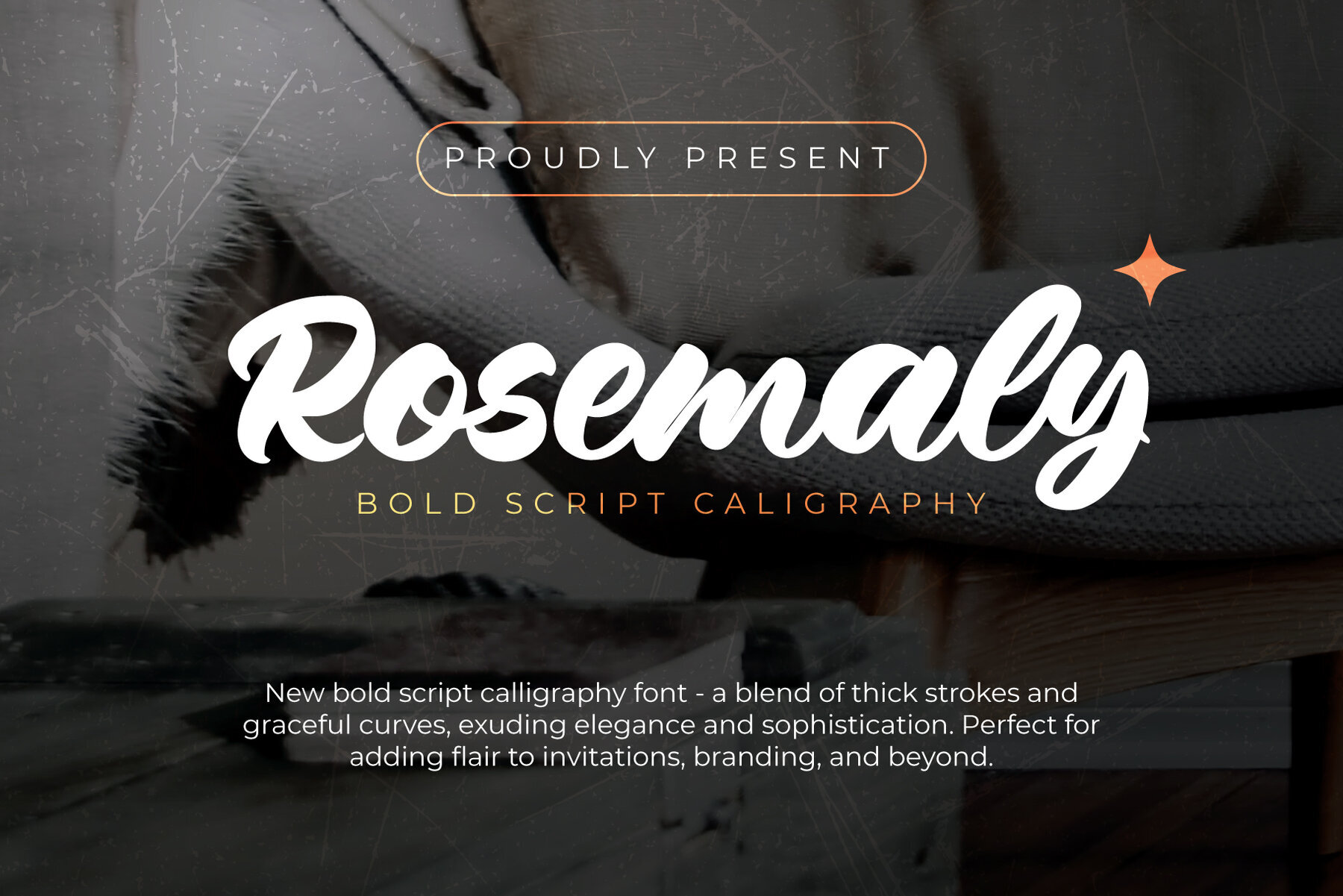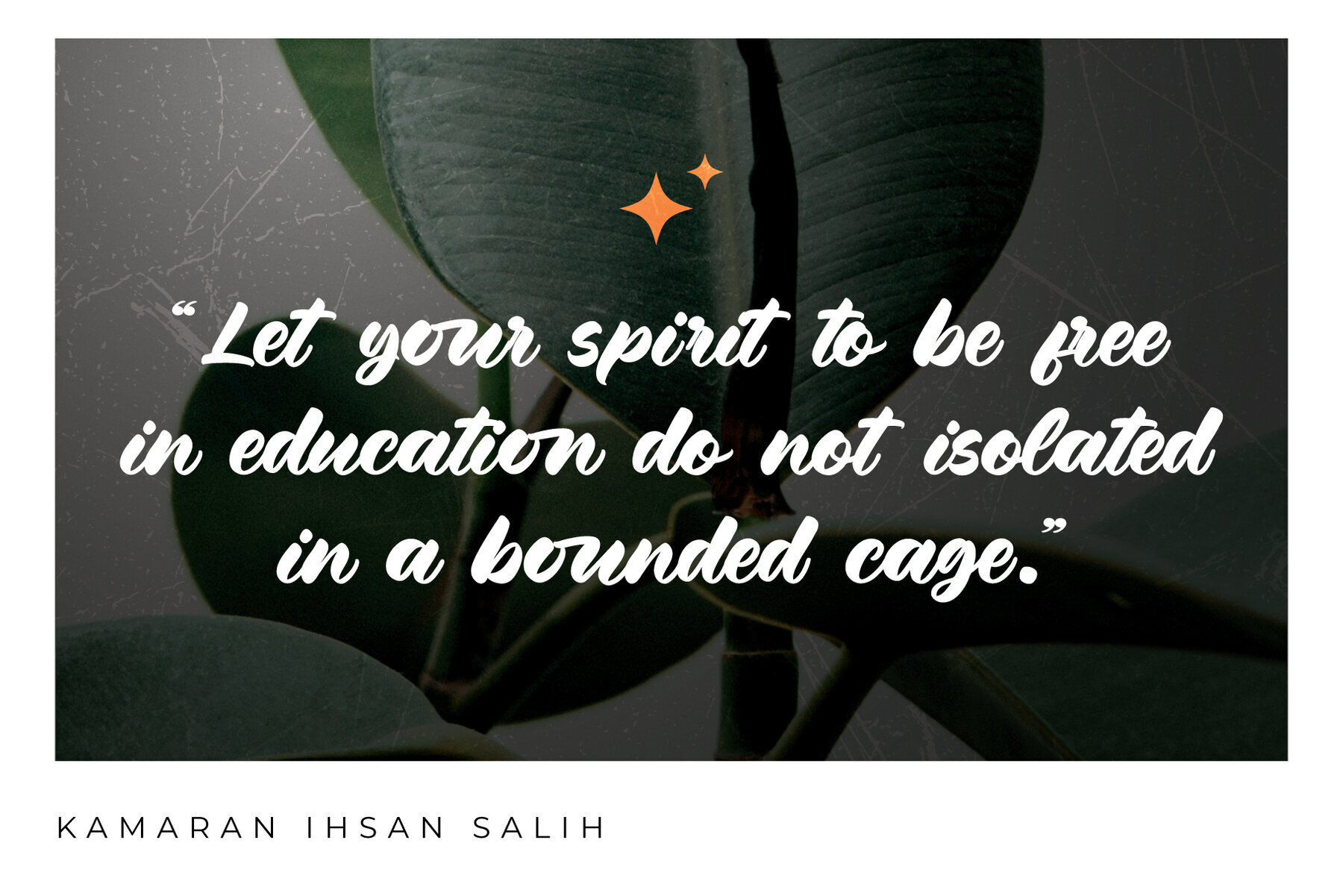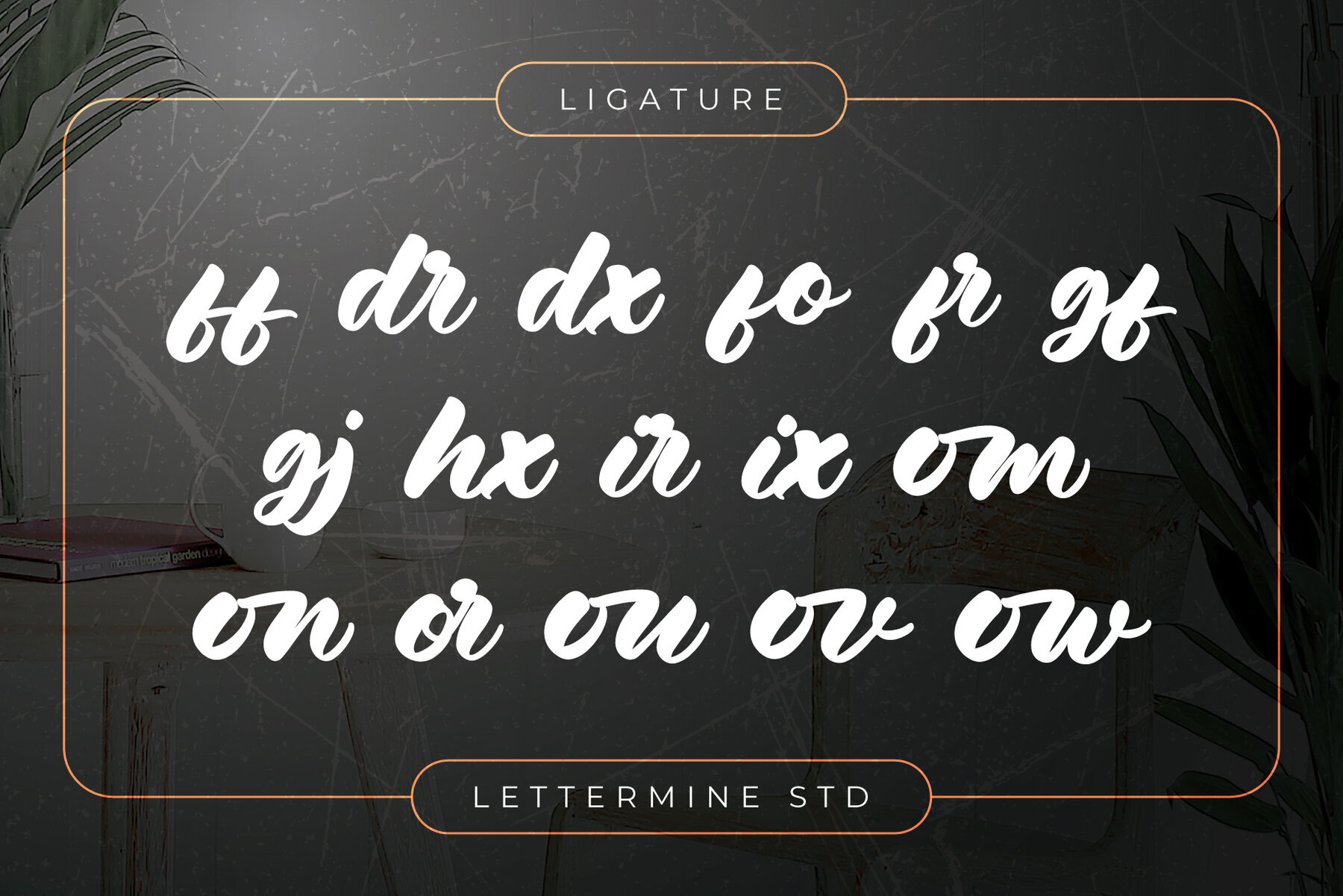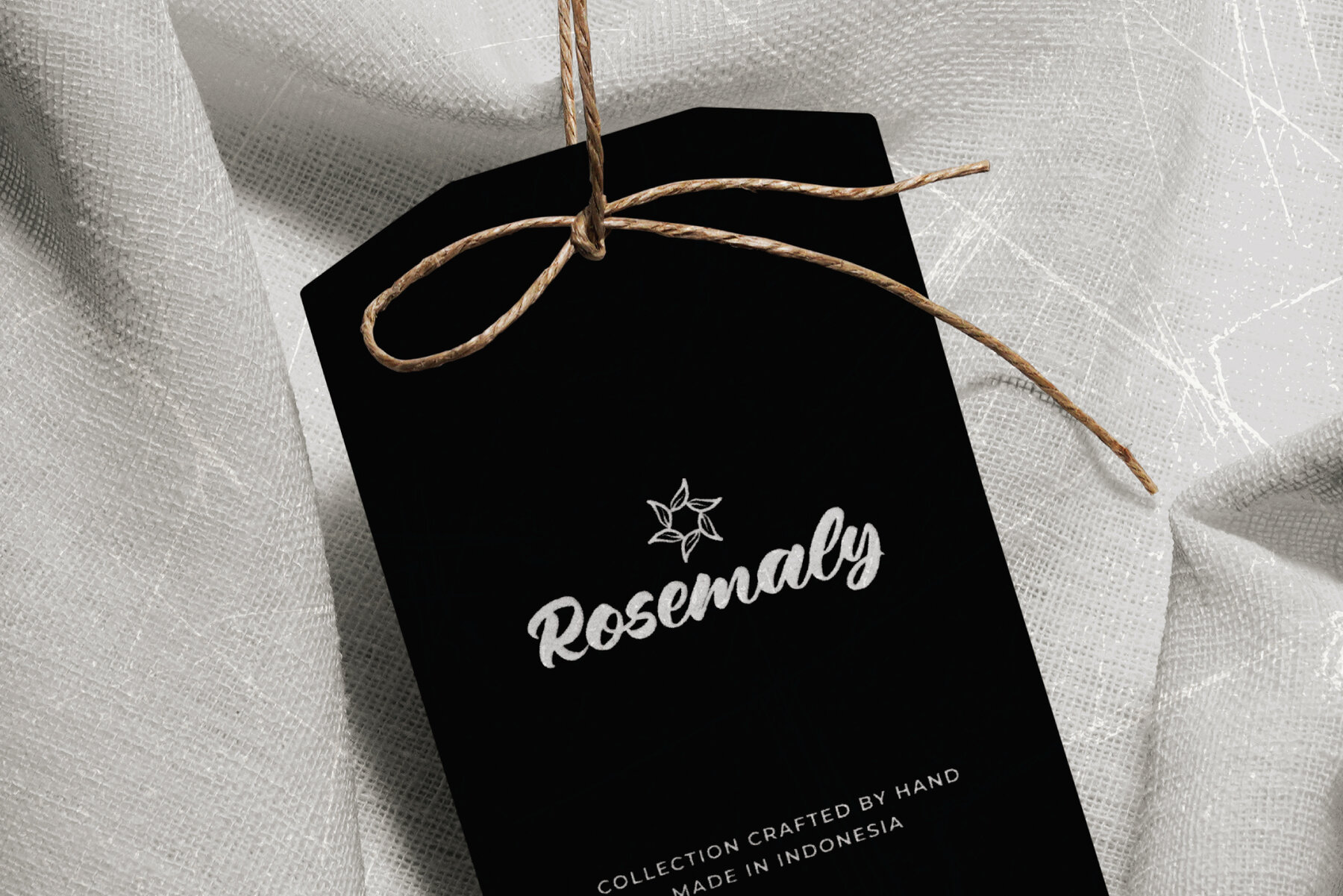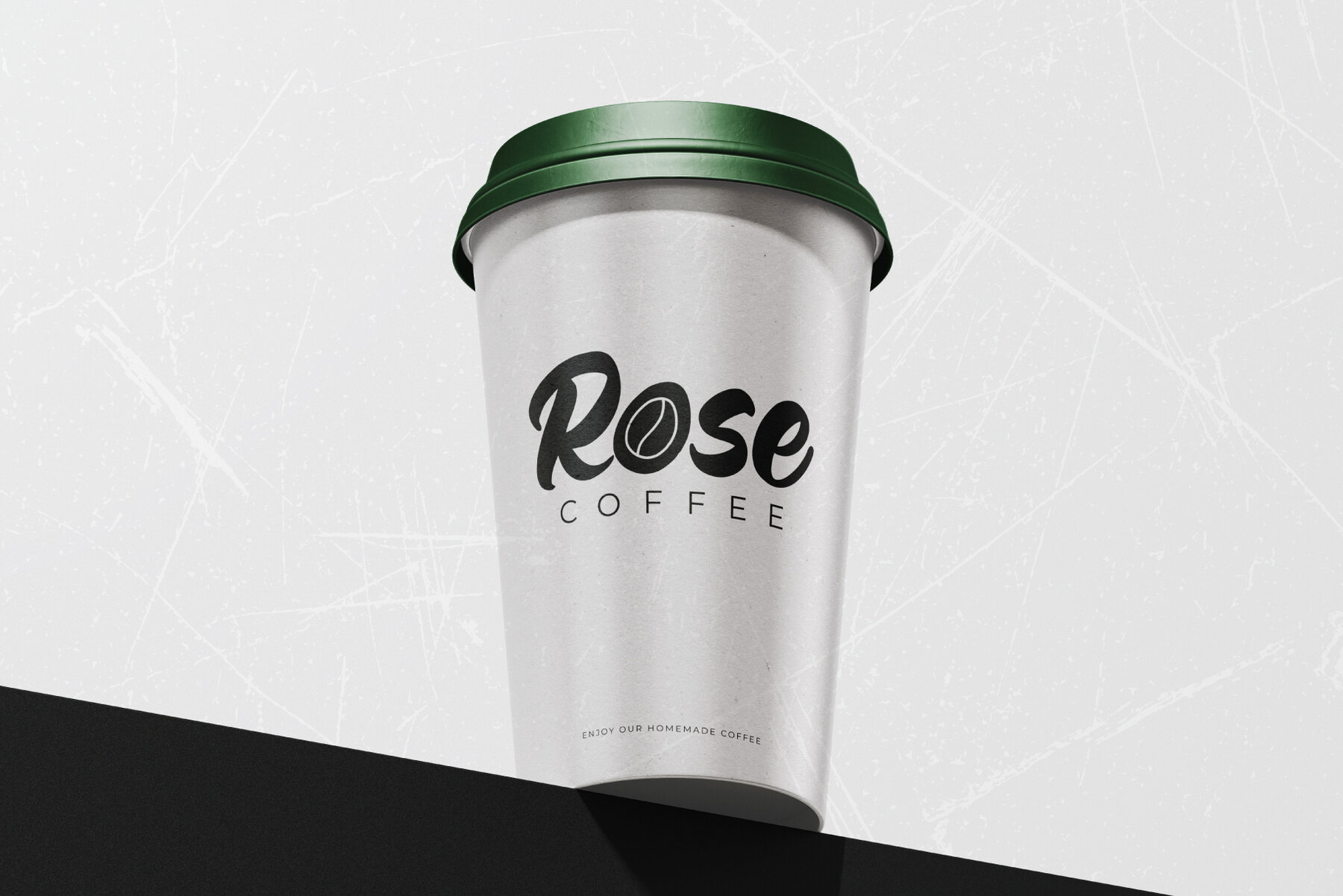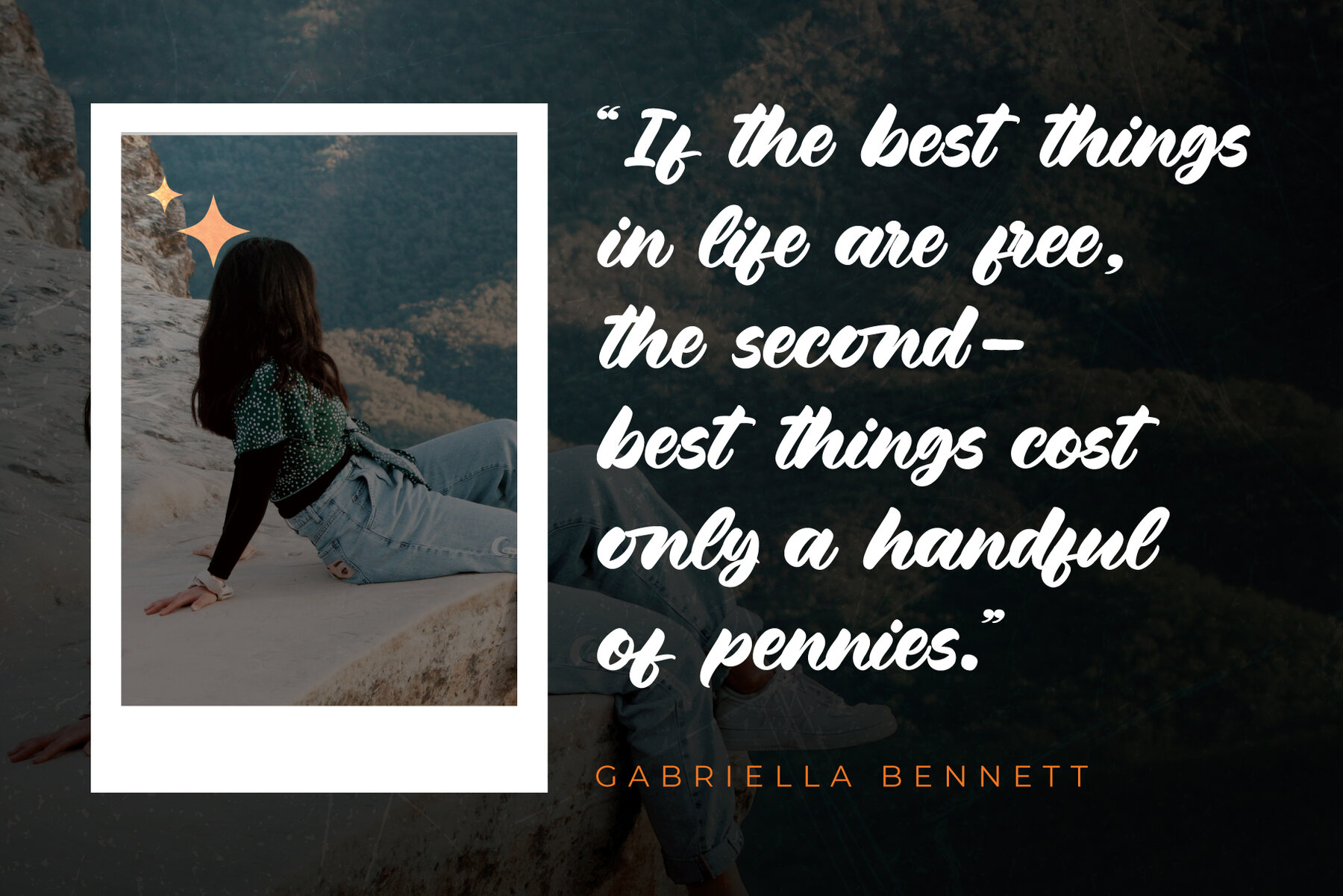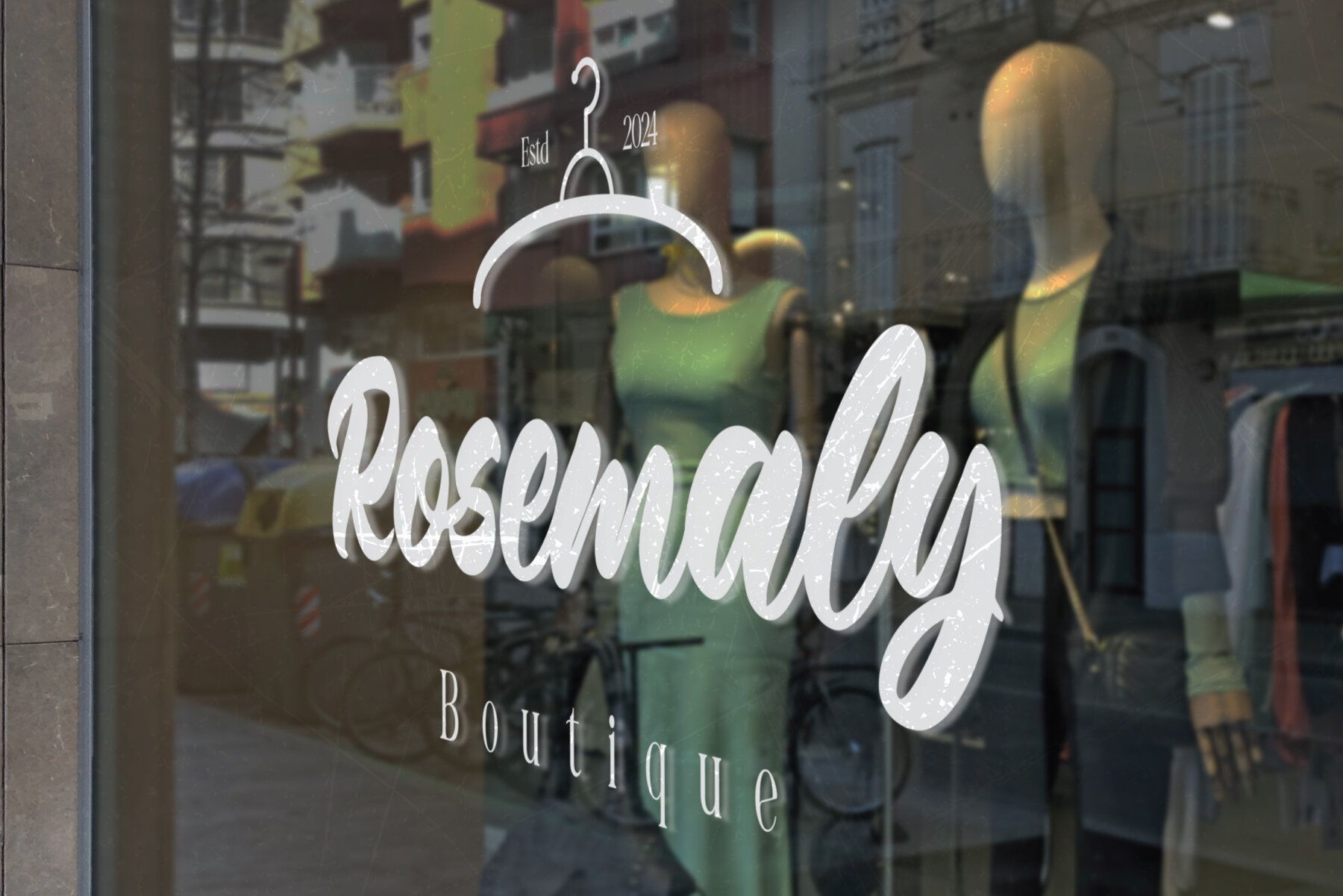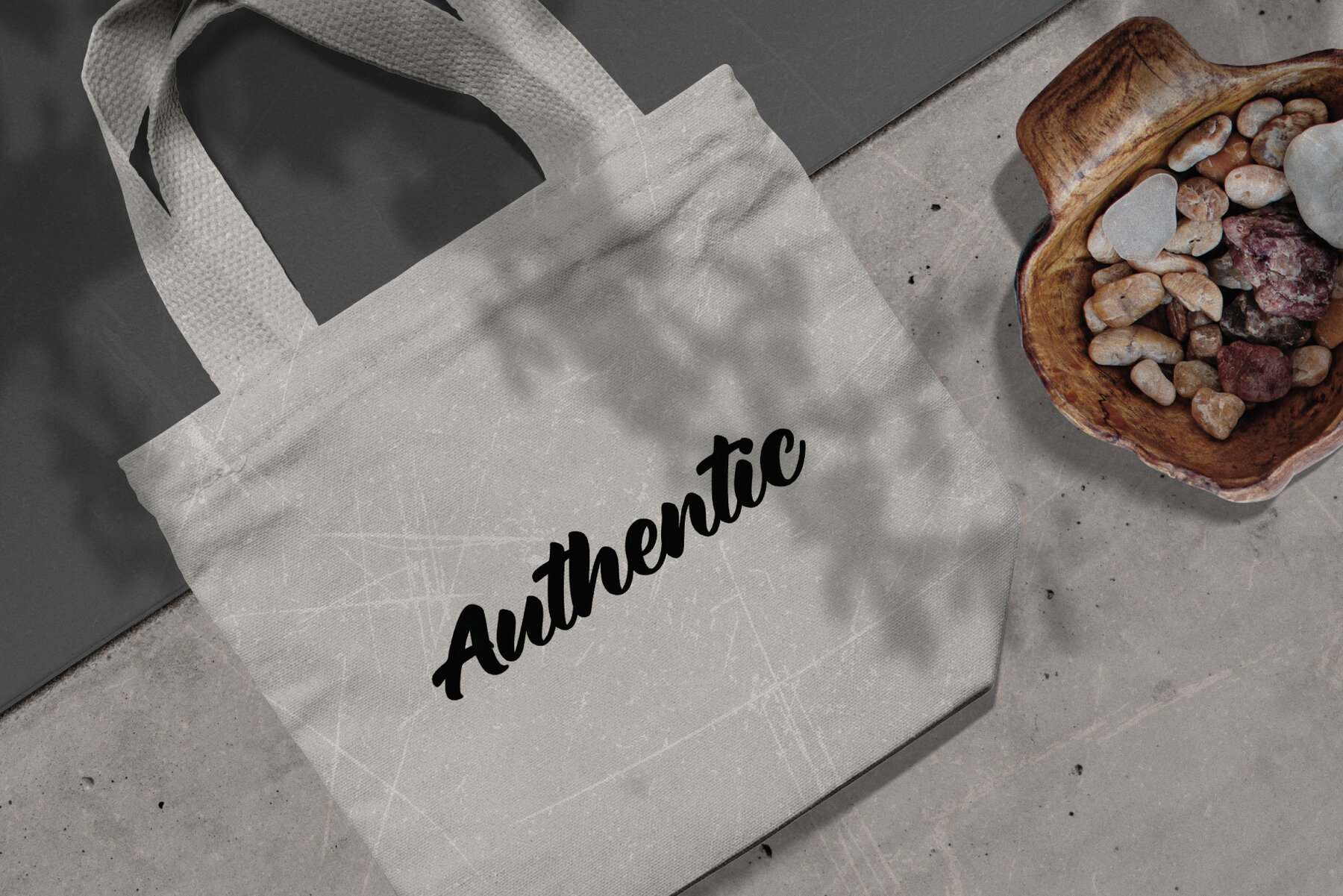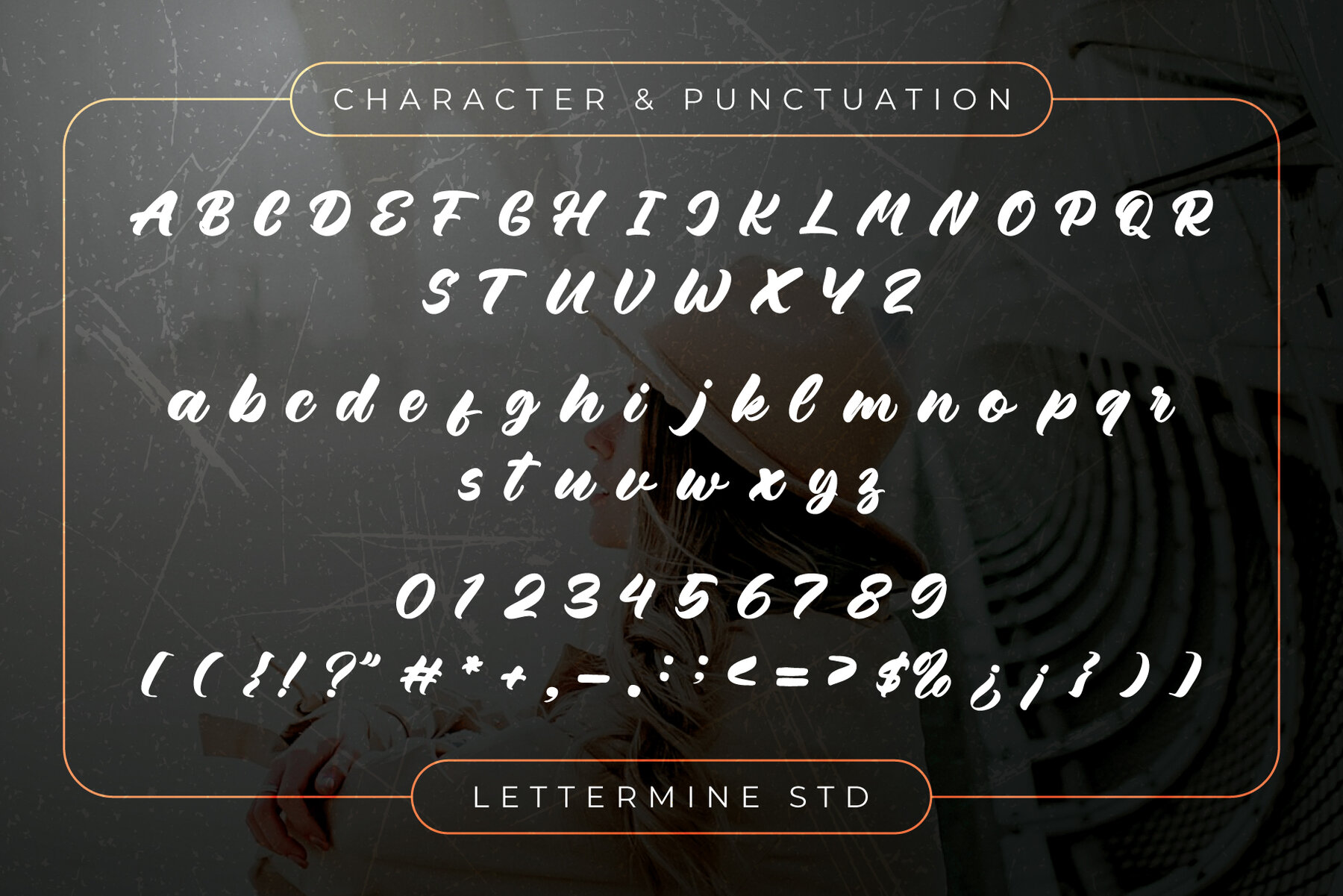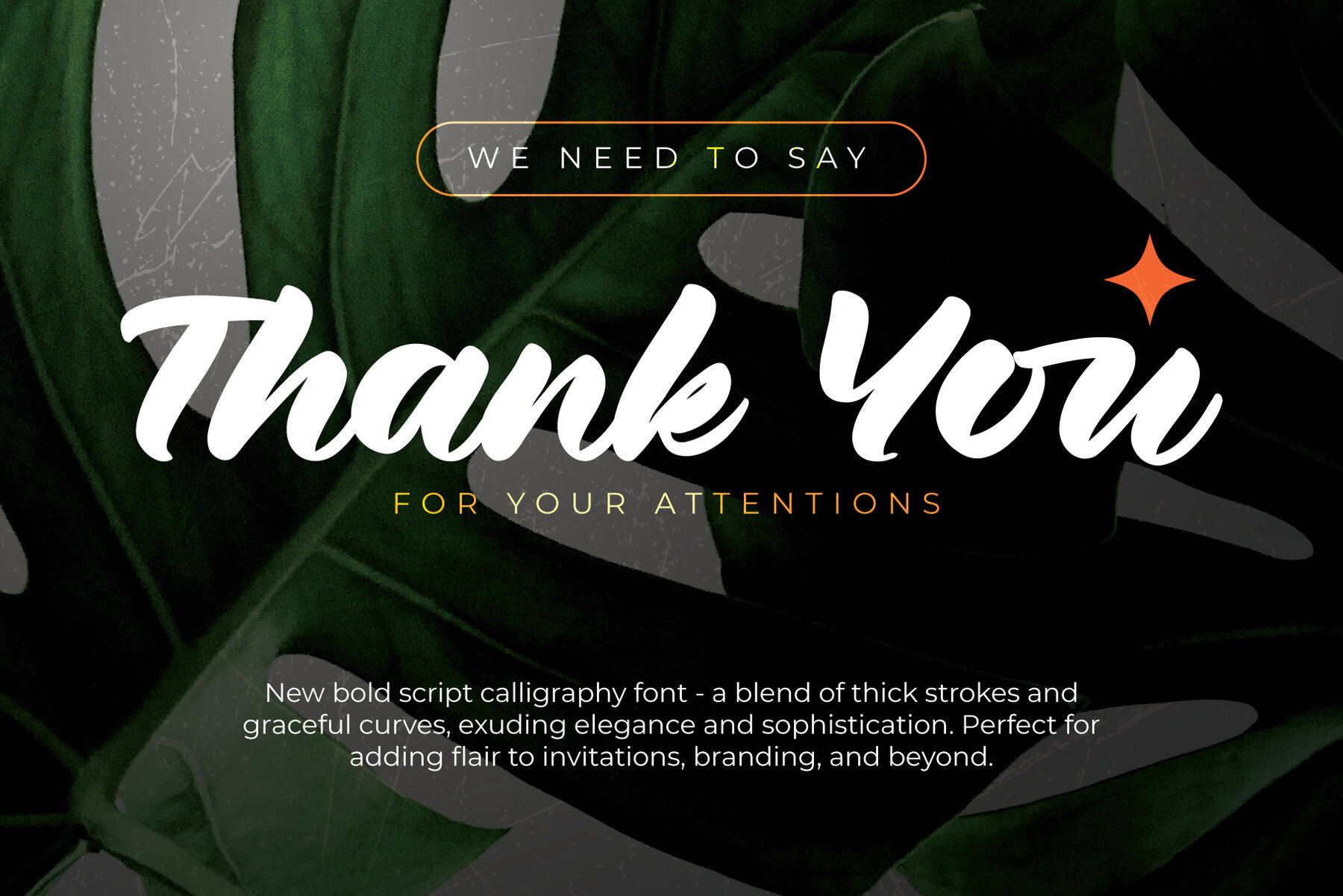
Rosemaly Font
Rosemaly Regular
This is a lively, cursive script typeface with a brush-inspired look that conveys a sense of energy and informality. Each letter exhibits a dynamic flow with varying stroke weights, giving the impression of being hand-painted. It's perfect for projects that require a personal, artistic touch, adding character and vitality to any design.